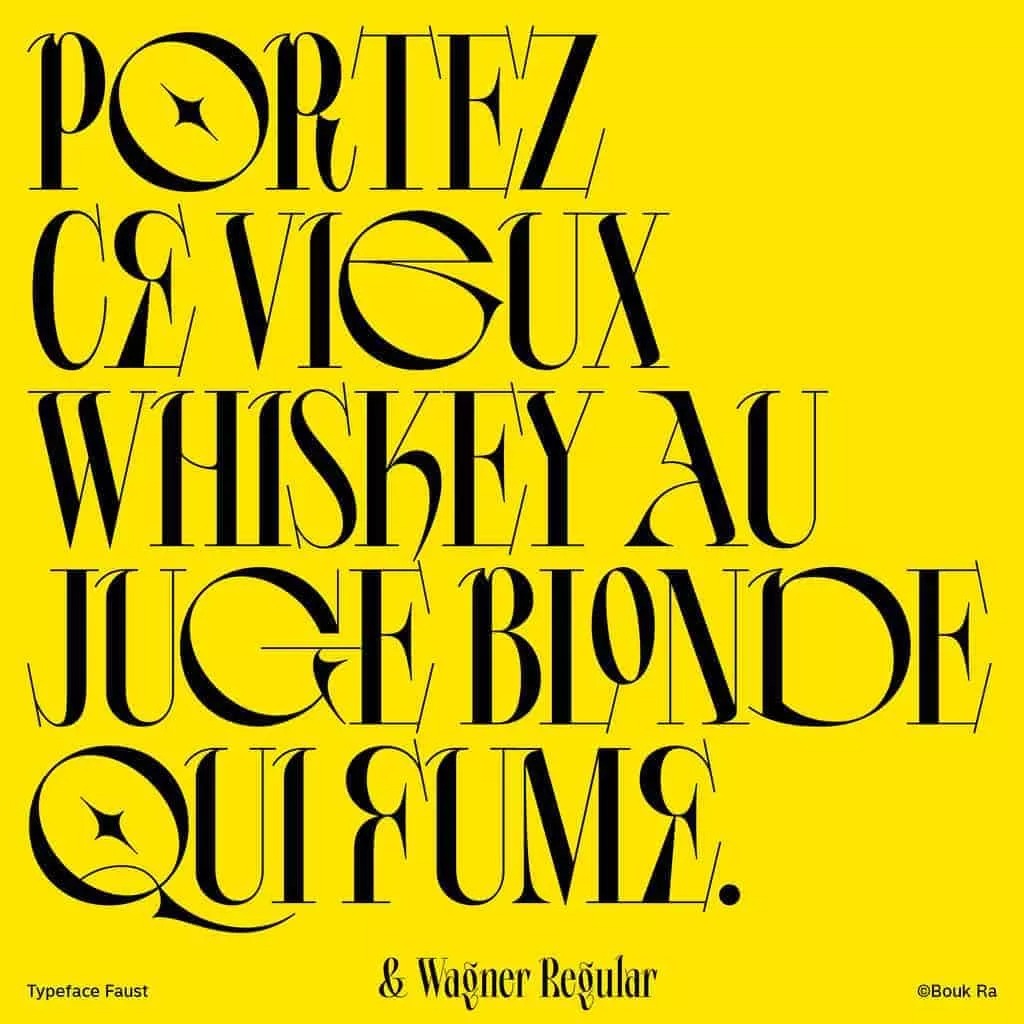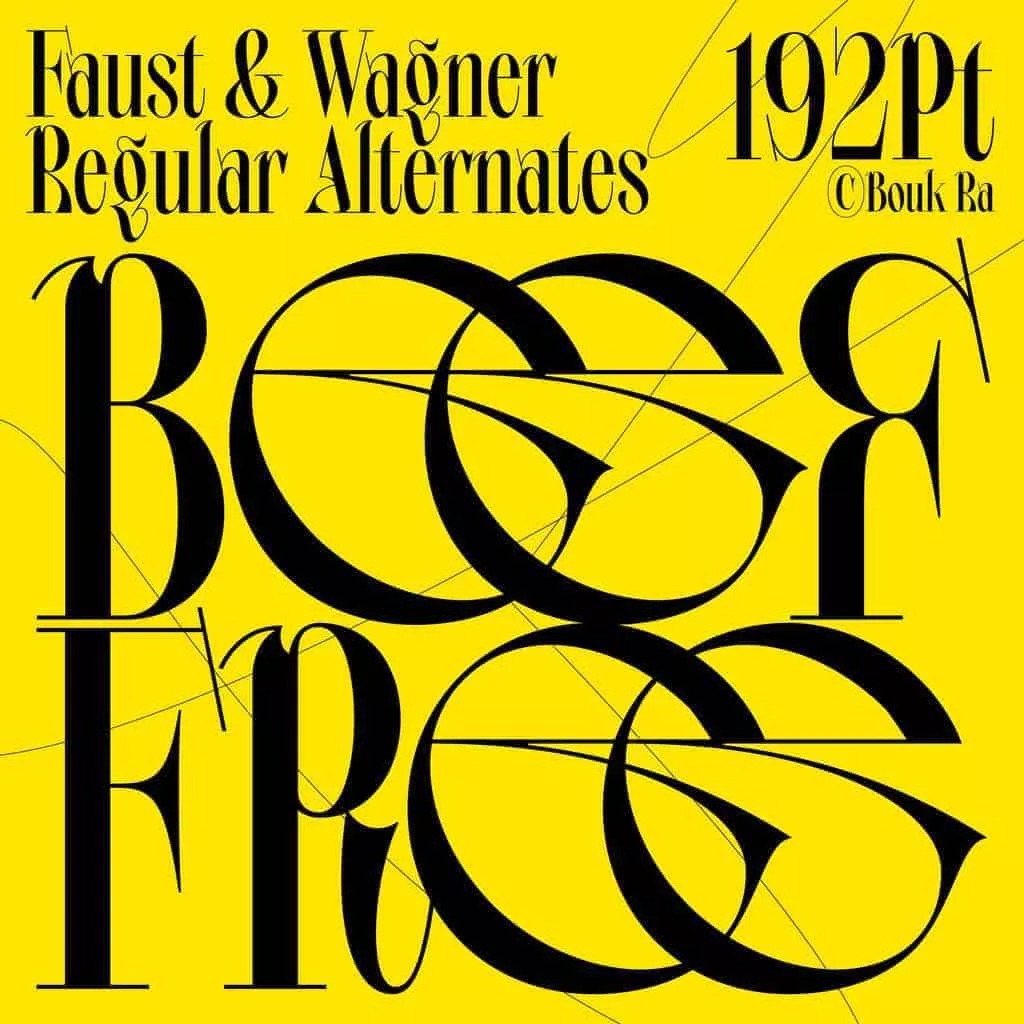
Faust Font
Hilsfiger Font is a unique, fun and versatile serif typeface, expressing the agony and corruption of Faust, a character in German legend. The deformed serifs and wide alternates create a drastic rhythm throughout the typeface and is available in two styles – ‘& Wagner’, ‘& Mephisto’